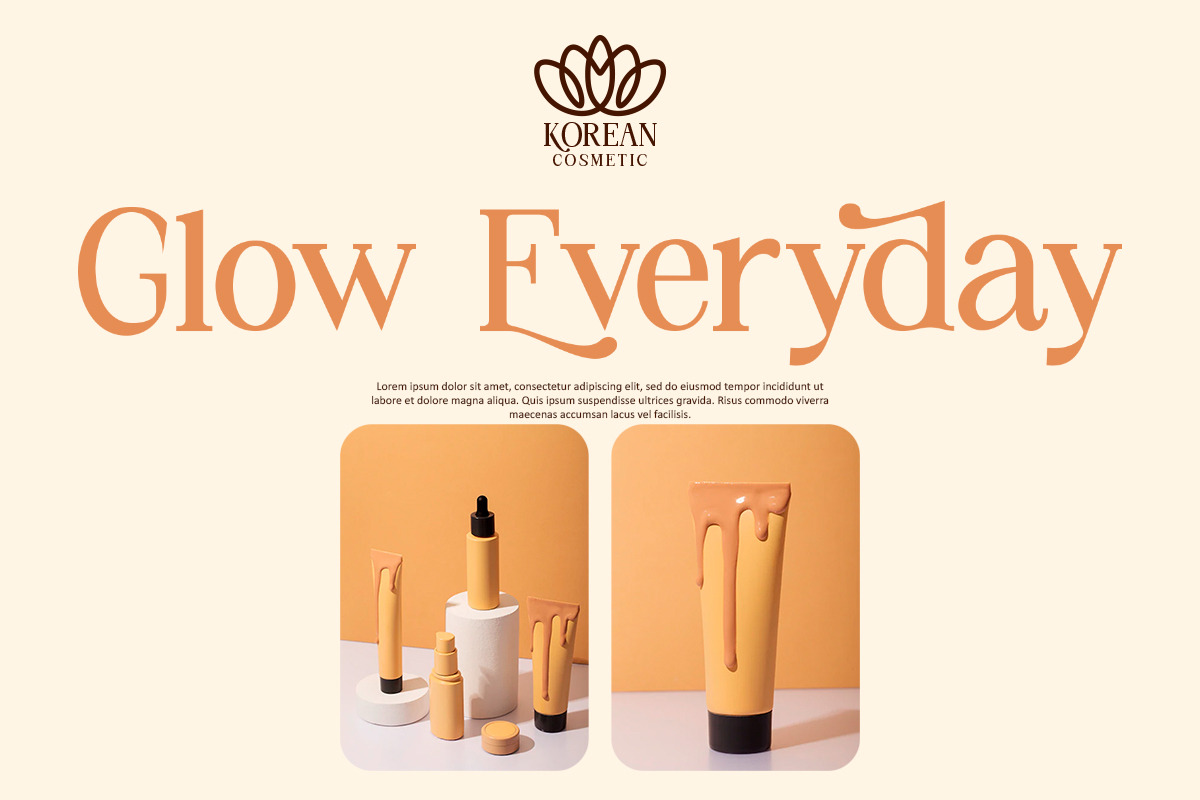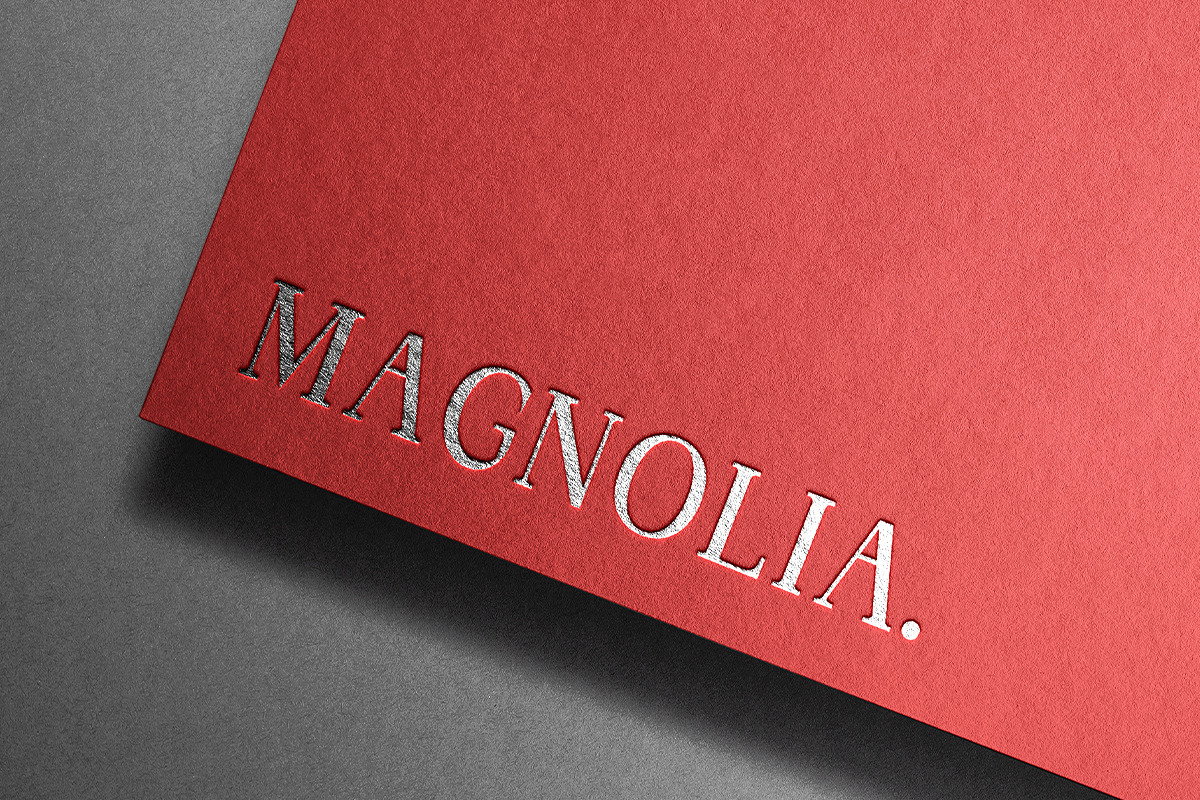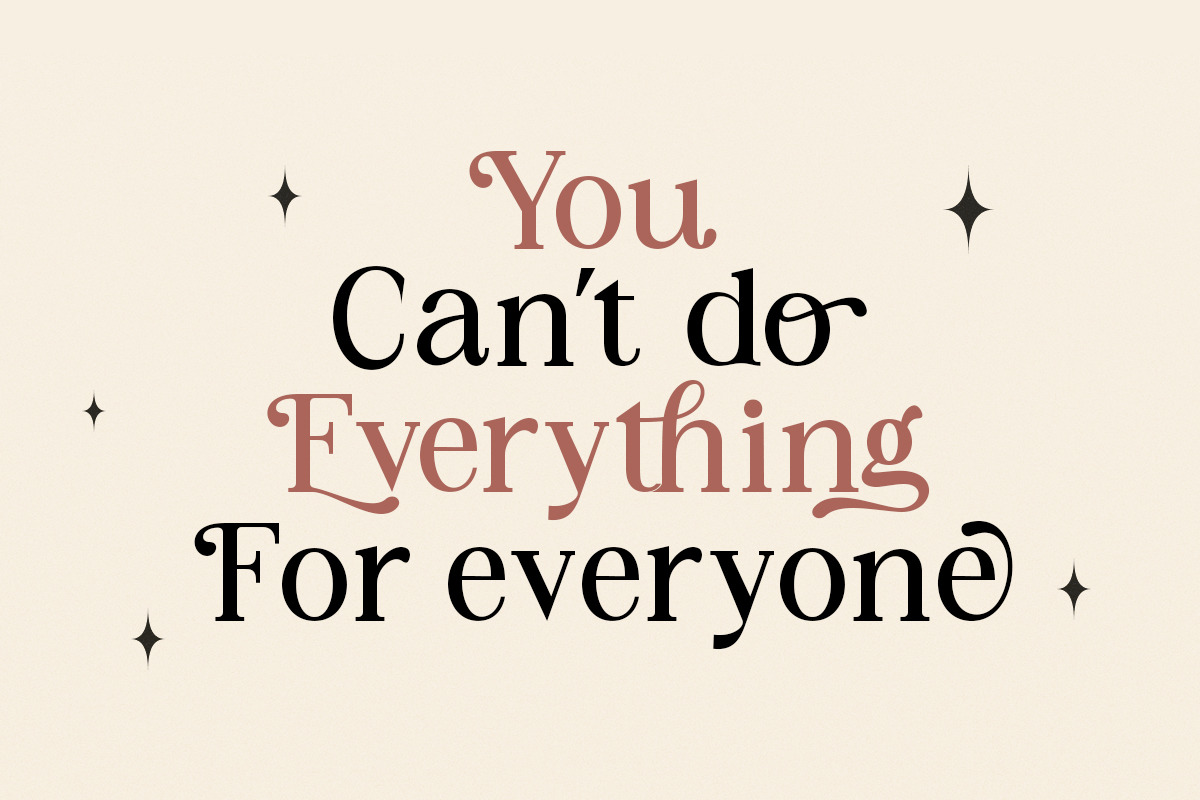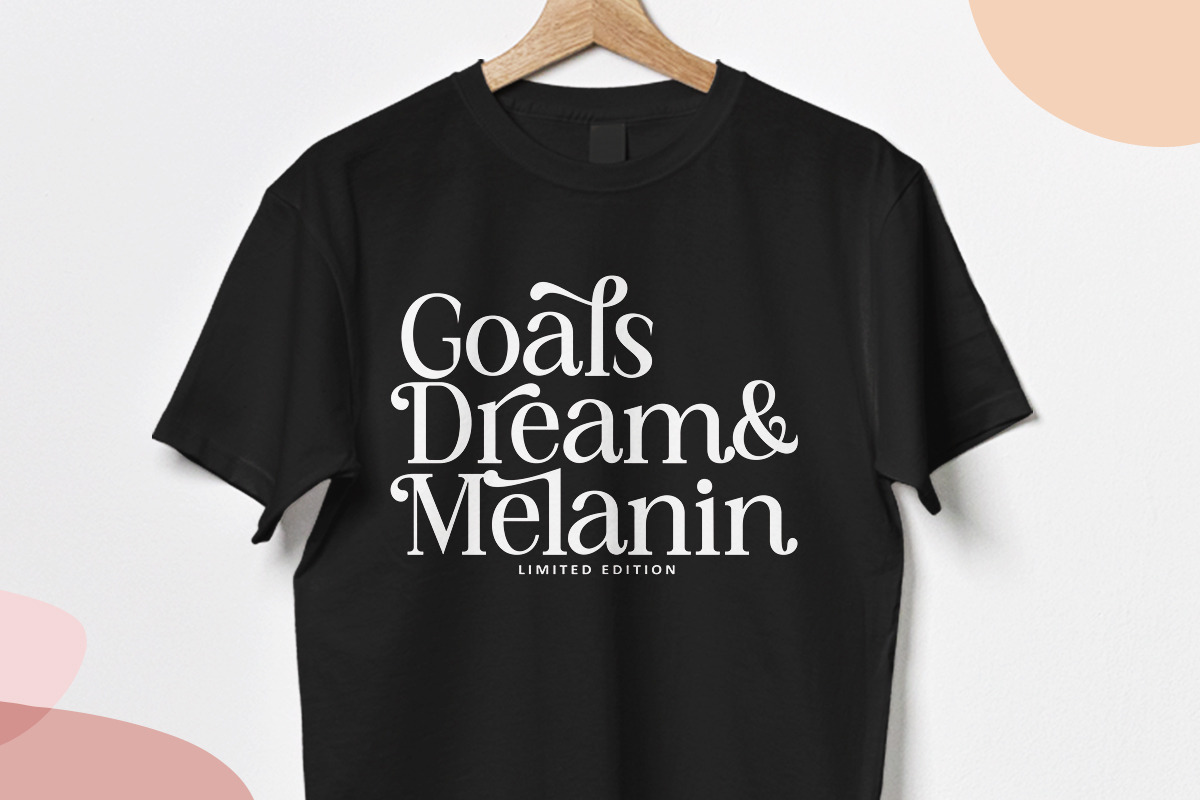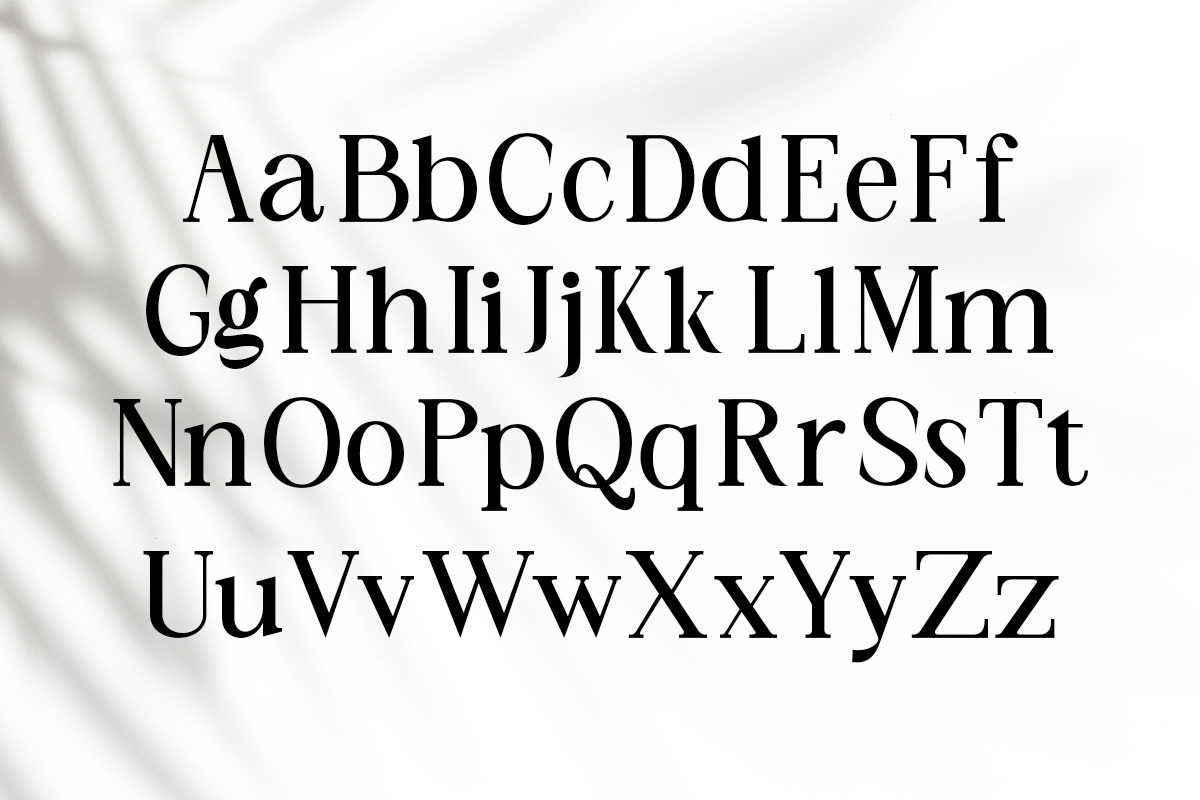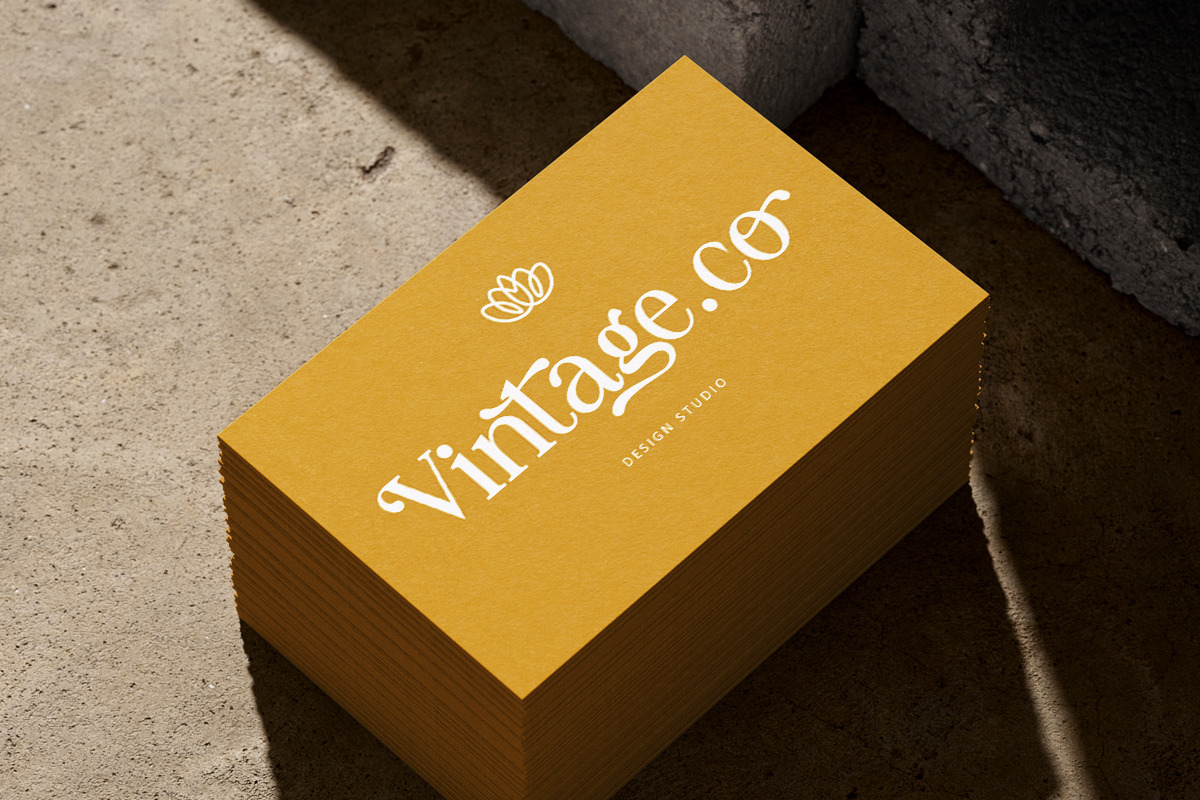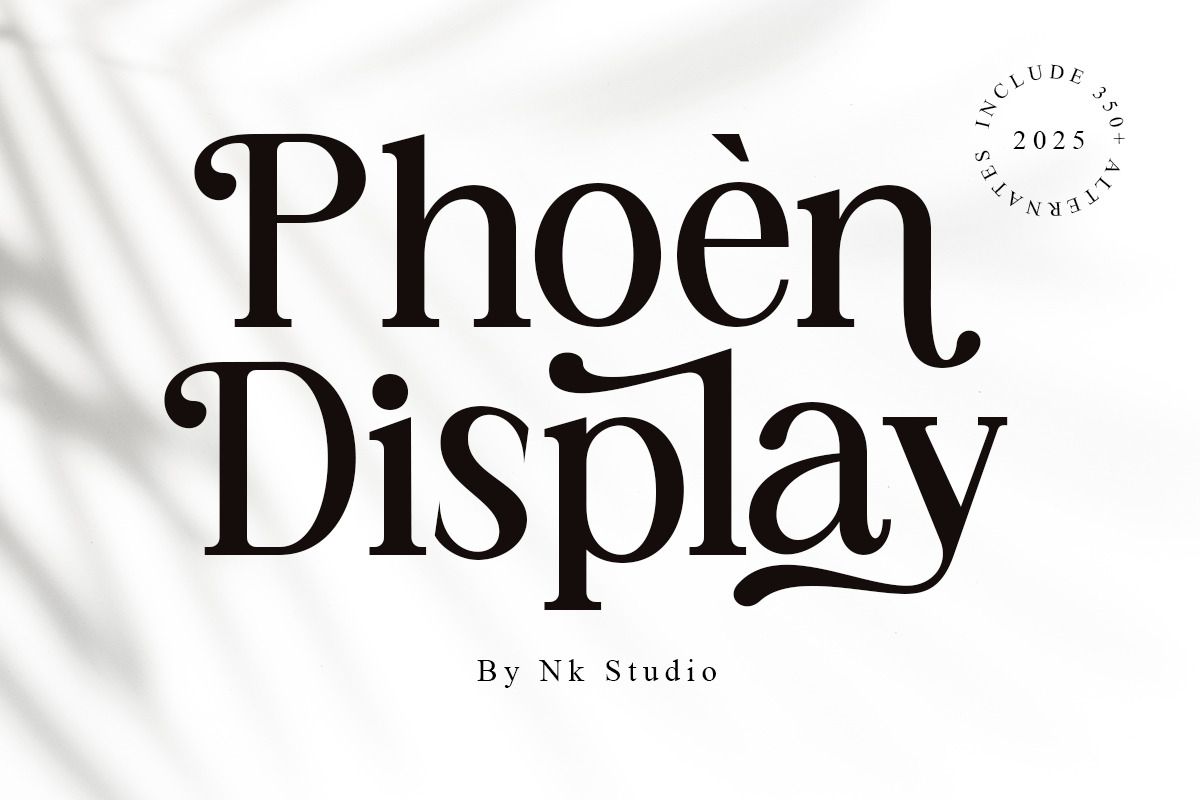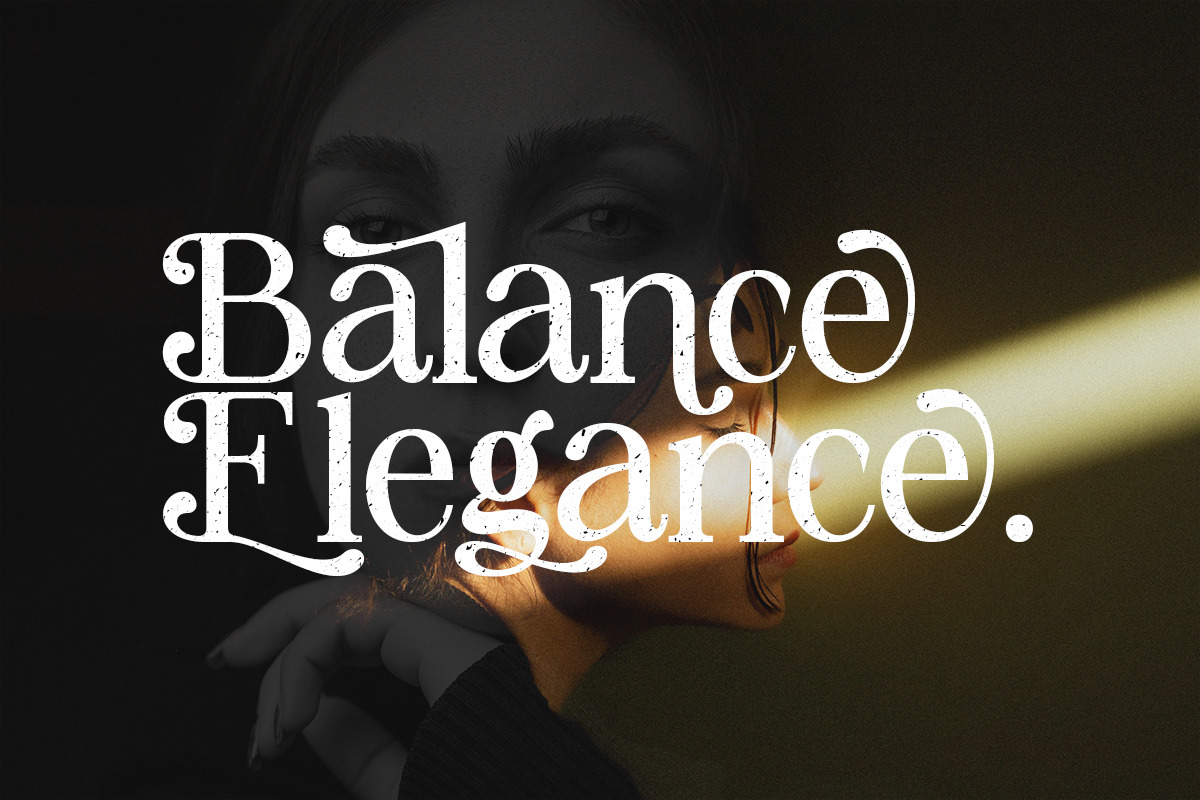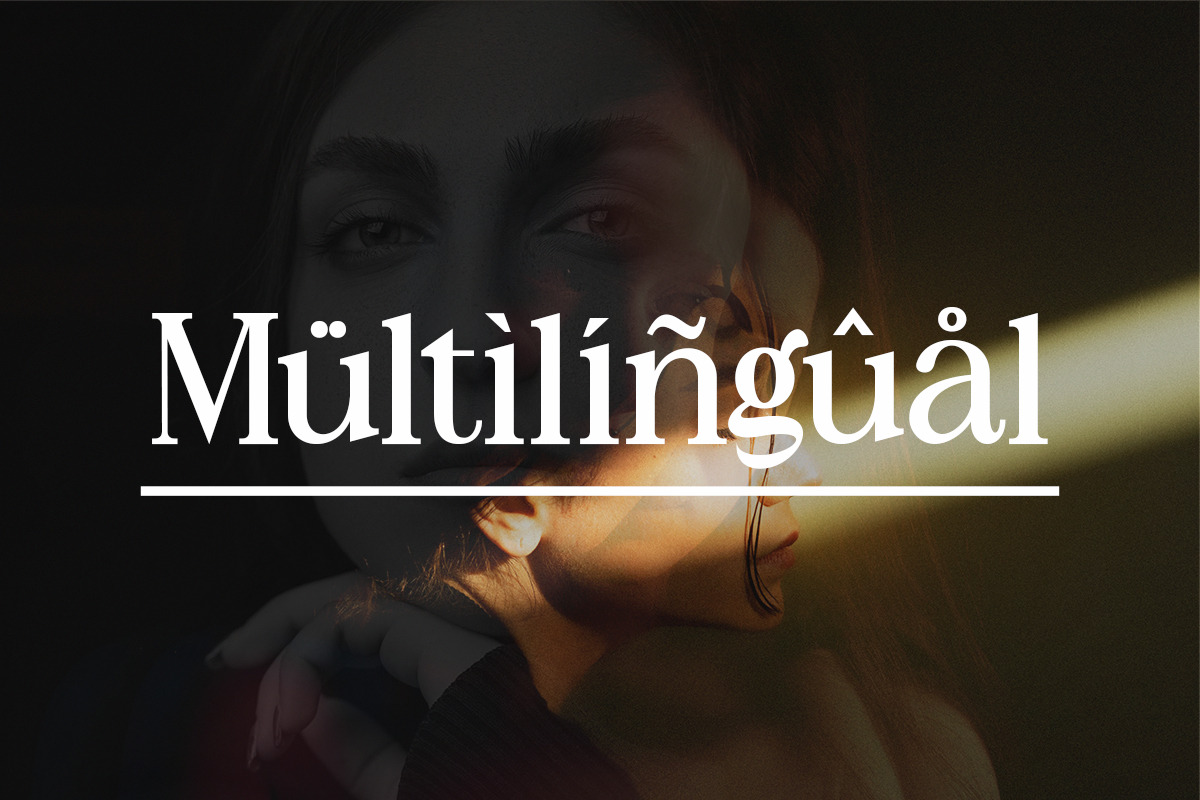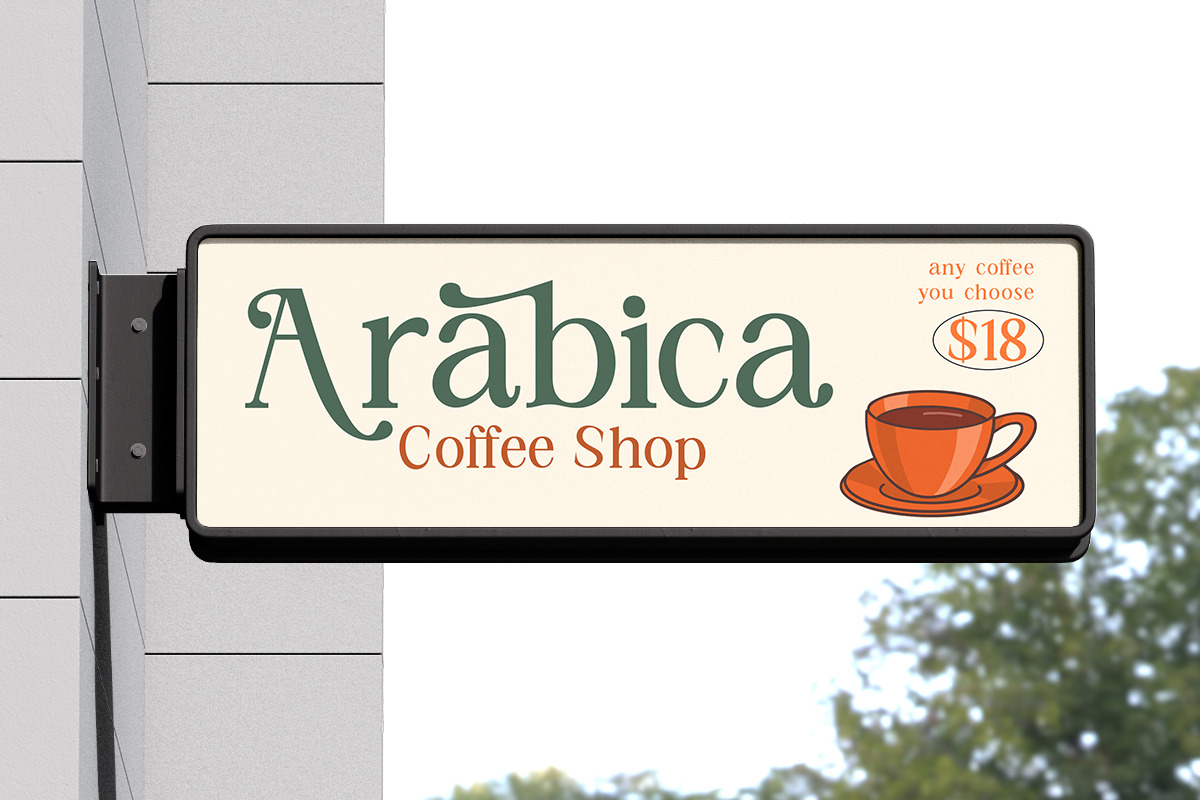
Phoen Display
Phoen Display - a serif display with simple, clean and visual elegance with smooth curves and beautiful ligatures, A very versatile font that can be used in both large and small sizes. This font is suitable for various projects such as: titles, logos, labels, branding projects, magazines, homeware designs, product packaging, mugs, quotes, posters and more. This font can also be more expressive and fun, thanks to the many alternates and ligatures that harmoniously combine in this font and make it more attractive and versatile. Try to change the alternates, ligatures and you will get many options for your projects that will make it bold & beautiful.
• Full set of upper and lower case letters
• Ligatures
• Alternates
• Various numbers, symbols & punctuation
• Accented characters
• Supports Multiple Languages